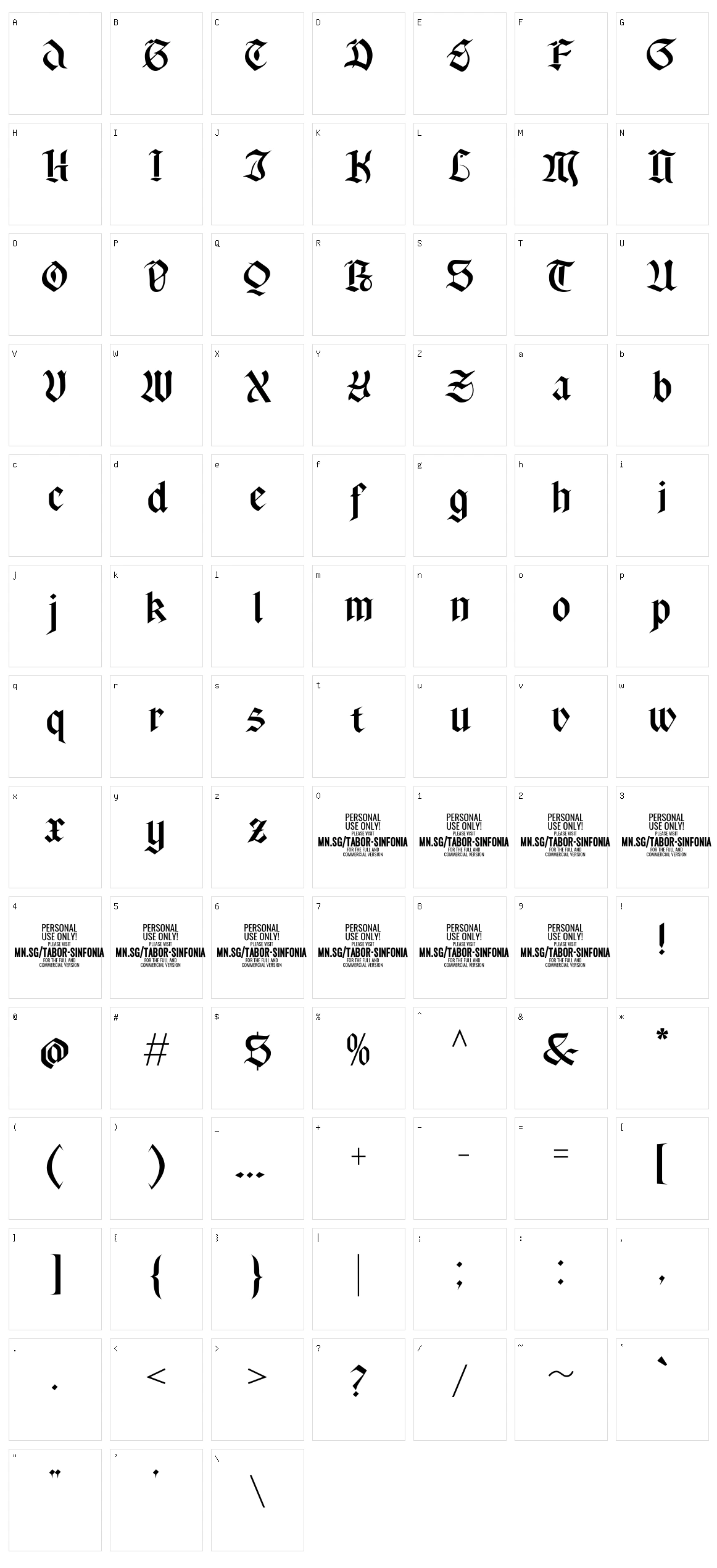
Tabor Sinfonia
Designed by: Mans Greback
Category: Medieval & Gothic
Tabor Sinfonia is a blackletter typeface that marries the historic beauty of Gothic script with the rhythm and harmony of music. This decorative font is perfect for logotypes, artistic projects, and designs that require a touch of vintage elegance.
The inspiration for Tabor Sinfonia came from a fascinating combination of medieval manuscripts and musical compositions. Mans Greback, intrigued by the relationship between visual art and music, employed AI algorithms to weave the essence of both art forms into a harmonious and captivating typeface that reflects the beauty of calligraphy and the rhythm of a symphony.
The font is built with advanced OpenType functionality and has a guaranteed top-notch quality, containing stylistic and contextual alternates, ligatures, and more features; all to give you full control and customizability. It has extensive lingual support, covering all Latin-based languages, from Northern Europe to South Africa, from America to South-East Asia. It contains all characters and symbols you'll ever need, including all punctuation and numbers.
Mans Greback, a Swedish typeface designer, is well-known for his ability to create innovative and unique fonts. His skill and dedication to typography have allowed him to develop a diverse portfolio, frequently used by designers globally. Constantly pushing boundaries, Mans continues to contribute to the world of typography.